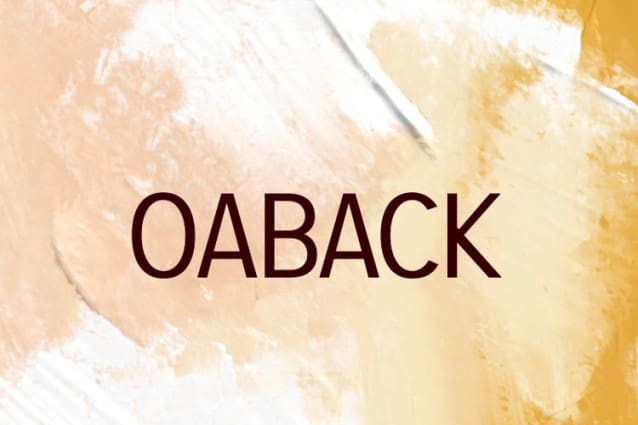
Oaback Font
Oaback Font a bold statement with our latest sans-serif font. With its clean lines and modern appeal, this font is sure to turn heads and leave a lasting impression. Perfect for headlines, logos, and any design that demands attention. It is both functional and stylish, making it a versatile choice for a wide range of design projects.